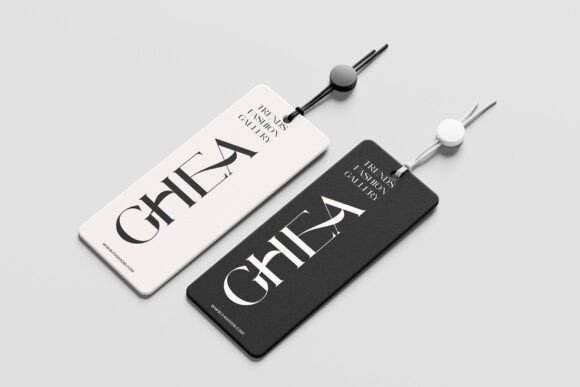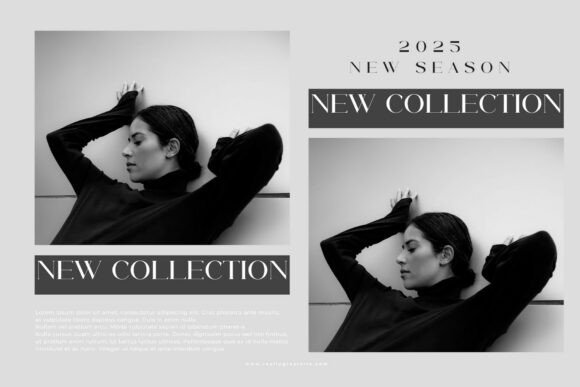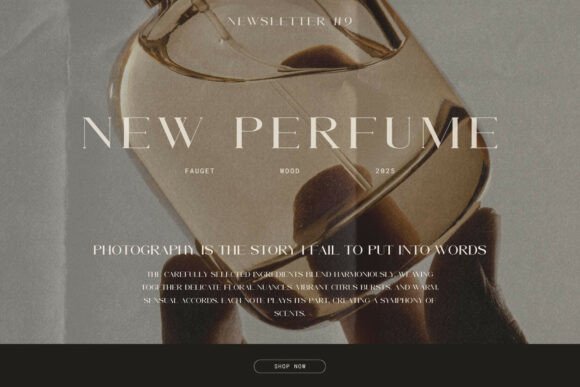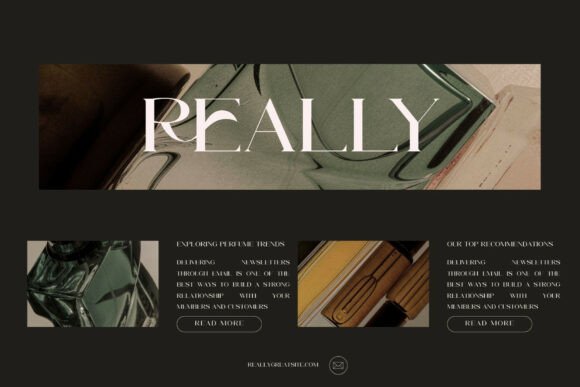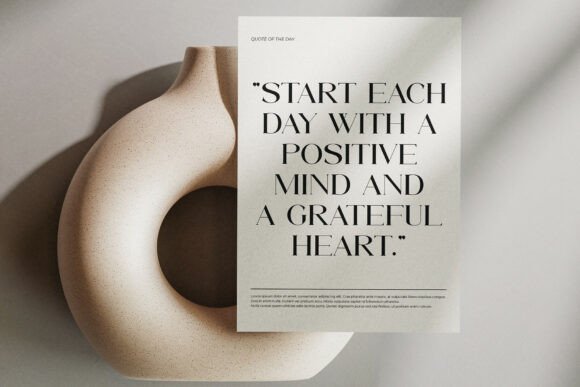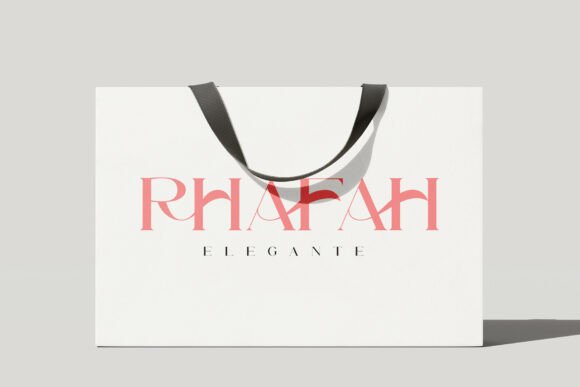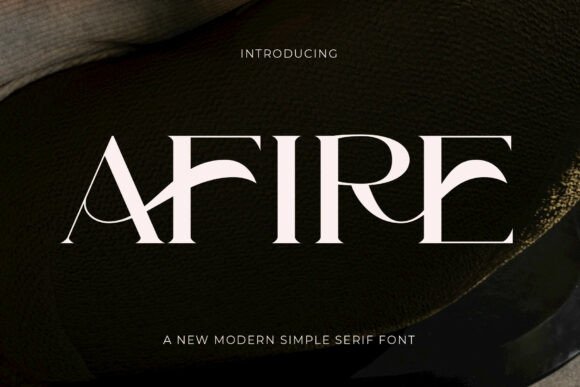
Ignite Your Creative Vision with Afire Font: A Modern Serif Masterpiece
In the world of typography, a font can make or break a design. It’s the foundation upon which creativity is built, and the right choice can elevate a project from ordinary to extraordinary. For designers and crafters seeking a typeface that embodies both simplicity and sophistication, Afire Font is a game-changer. This modern serif font is a symphony of clean geometry and artistic fluid movement, designed to ignite your creative vision and bring a touch of elegance to your work.
The Anatomy of Afire Font
Afire Font boasts a rhythmic silhouette that is both visually striking and highly legible. Its wide apertures ensure clarity, even at smaller sizes, while the high-contrast stroke weight adds a level of refinement and luxury. The result is a font that feels both modern and timeless, perfect for projects that demand a sense of sophistication and poise.
One of the standout features of Afire Font is its distinctive personality, which is largely defined by its expressive, sweeping ligatures and interlocking flourishes. The organic connection between the “A” and “F” is particularly noteworthy, providing a bespoke, hand-crafted feel that sets Afire apart from more generic typefaces. These unique elements add a level of warmth and human-centricity to your designs, making them feel more approachable and engaging.
Crafting a Lasting Impression with Afire Font
So, where can Afire Font make an impact? The answer is: anywhere you need to make a lasting impression. For lifestyle branding, Afire’s refined elegance and polished beauty make it an exceptional choice. It’s perfect for high-end interior design portfolios, where the emphasis is on showcasing luxury and sophistication. On social media, Afire’s chic headers will help your content stand out in a crowded feed, while for modern jewelry packaging, the font’s sense of luxury and refinement will help your products shine.
Afire Font’s versatility is one of its greatest strengths. Whether you’re working on a large-scale branding project or a smaller, more personal endeavor, this font is designed to adapt and impress. Its unique blend of modernity and classic elegance ensures that it will complement a wide range of design styles, from minimalist to elaborate.
Bringing a Touch of Refined Warmth to Your Designs
In a world where design trends can shift quickly, Afire Font offers a timeless quality that will keep your work looking fresh and relevant for years to come. Its refined human-centric warmth and polished minimalist beauty make it an invaluable tool for designers and crafters seeking to create work that resonates on a deeper level.
With Afire Font, you’re not just choosing a typeface; you’re investing in a design solution that will elevate your work and help you connect with your audience on a more personal level. Whether you’re crafting a brand identity, creating a stunning portfolio, or simply looking for a font that will make your social media posts stand out, Afire is the perfect choice.
Afire Font is more than just a font – it’s a design statement. With its simple yet striking modern serif design, expressive ligatures, and interlocking flourishes, Afire is the perfect tool for igniting your creative vision. Whether you’re a designer, crafter, or simply someone who appreciates the art of typography, Afire Font is an exceptional choice for anyone looking to bring a touch of elegance, sophistication, and refined warmth to their work.
So why settle for ordinary when you can ignite your creative vision with Afire Font? Discover the power of this modern serif masterpiece and take your designs to new heights.